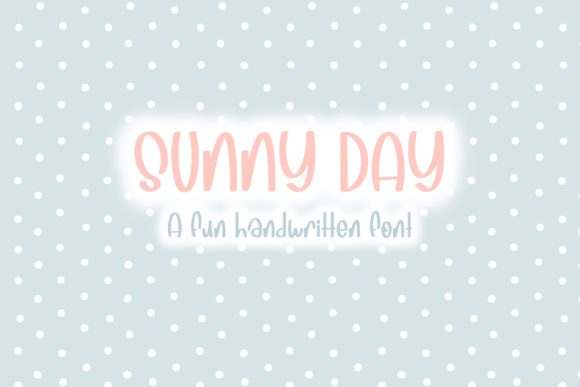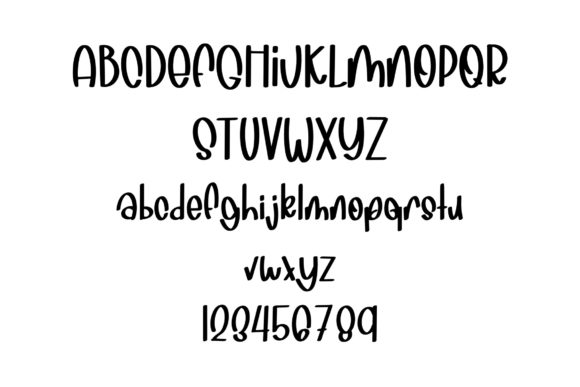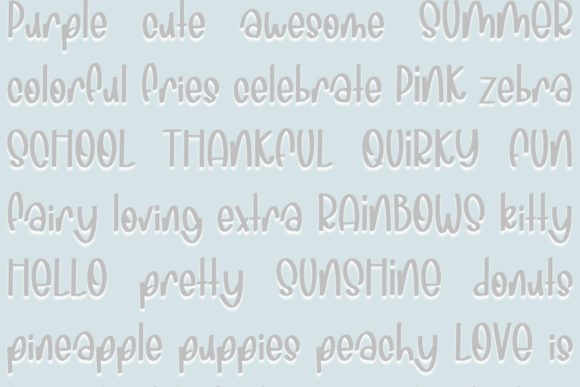
Sunny Day Font
About Sunny Day Font
Sunny Day is a beautiful handwritten font. Fall in love with its authentic feel and use it to create gorgeous wedding invitations, beautiful stationary art, eye-catching social media posts, and cute greeting cards.